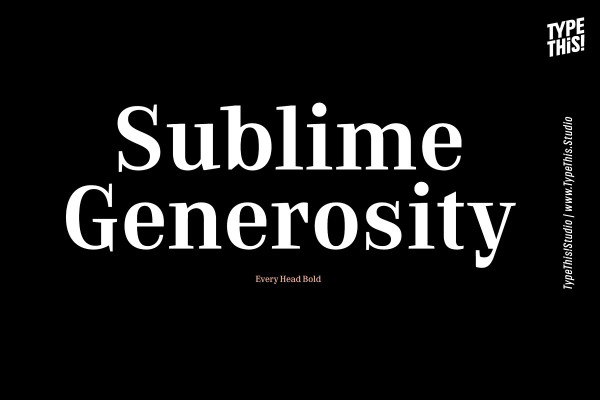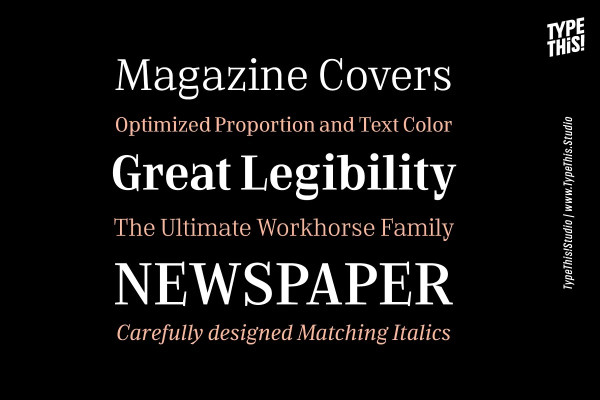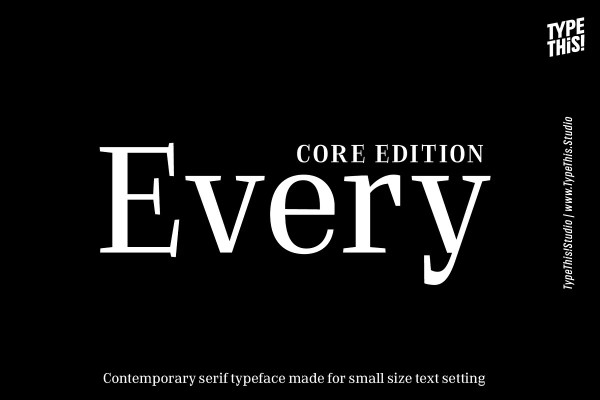
Every Font
EVERY Font is designed to be the most valuable typography equipment in your repertoire! It immediately reveals its true greatness and grandeur. Its sublime generosity, expressive aesthetics and unique presence underscore its image befitting its status.